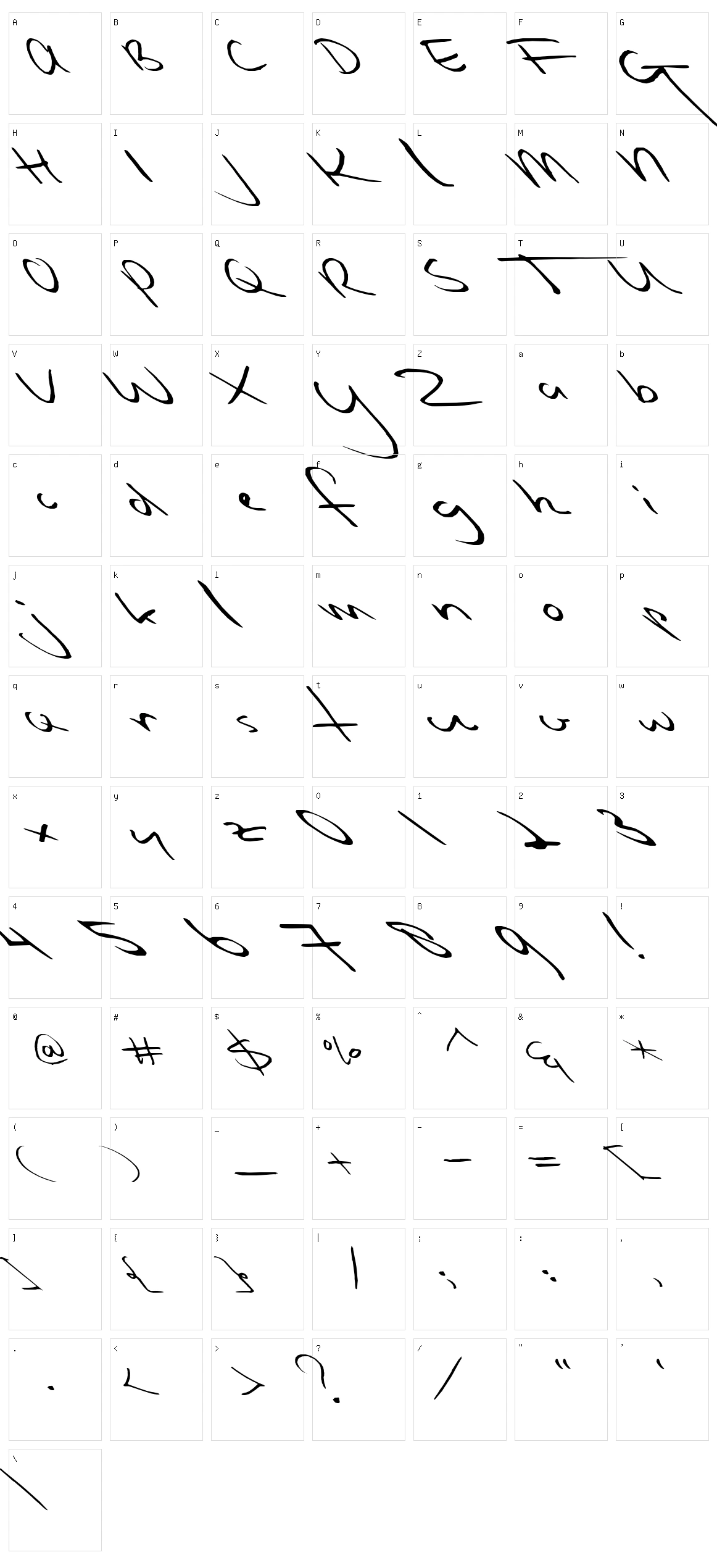
The free font Slipstream Sweetheart is carefully designed by Samyuli, showcasing a thoughtful balance of creativity and usability and falls under the Script font style. When you download the ZIP file, it contains only 65.83 KB of font files, making it lightweight and quick to download. Please review the license details below to understand permitted usage and distribution rights. If license information is not available, we recommend using this font for personal projects only or contacting the author directly for commercial usage permissions.